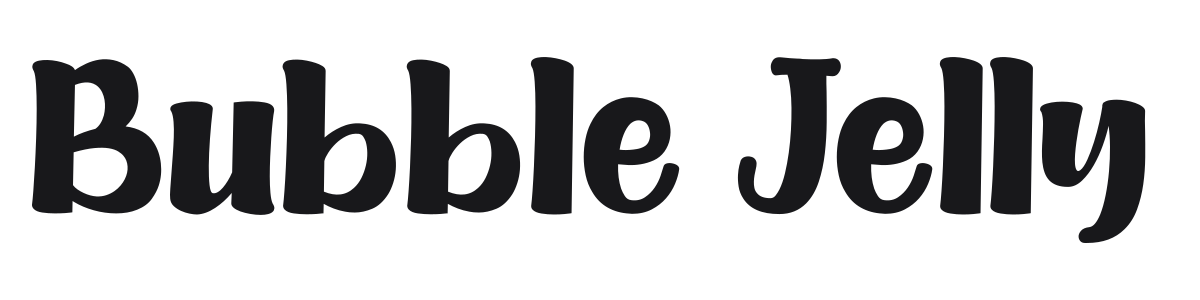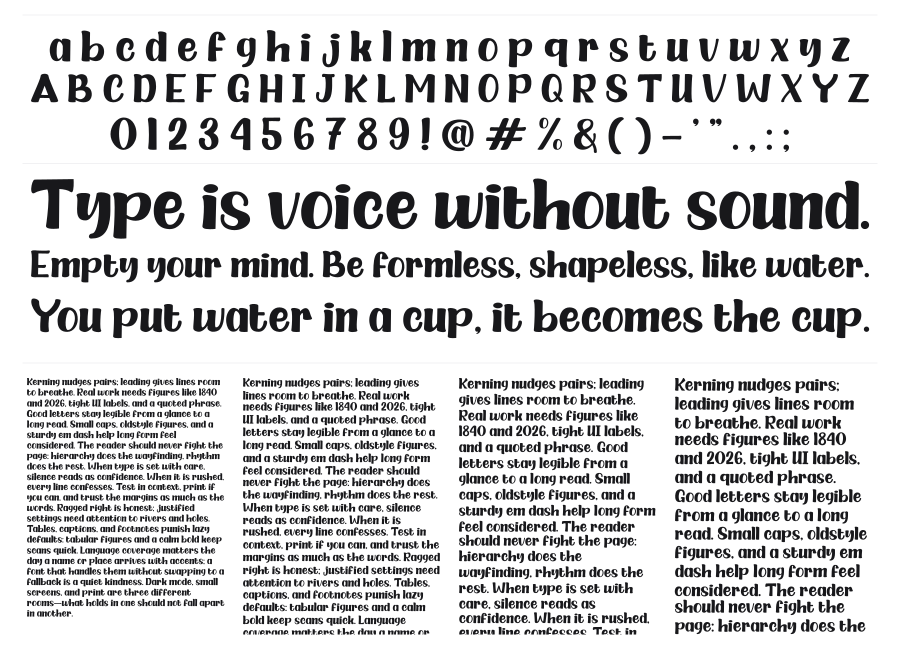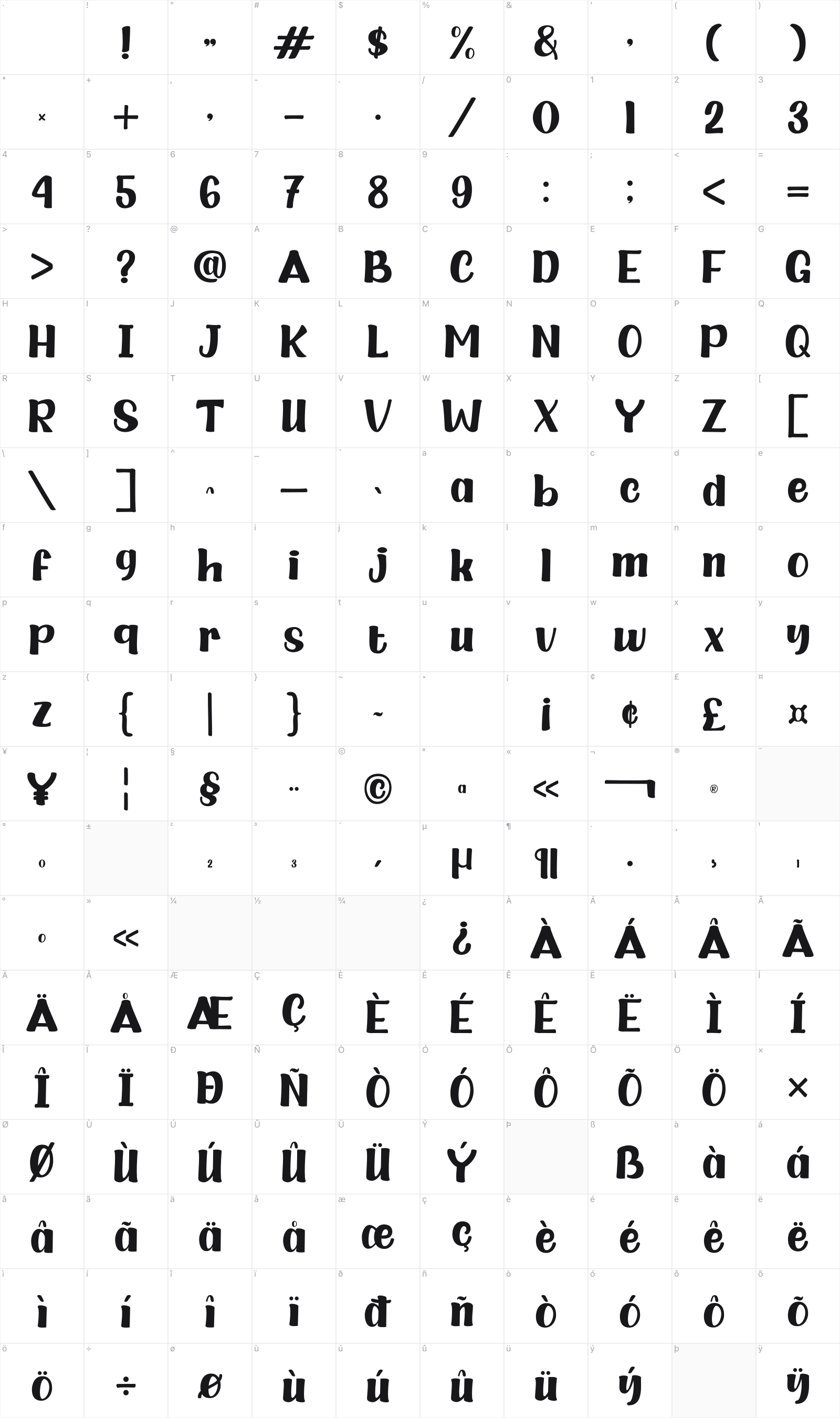
Bubble Jelly
Bubble Jelly is a bold, bubbly display font with chunky strokes, rounded terminals, and a playful mix of serif and informal construction. The high stroke contrast and inflated letterforms give it an animated, cartoon energy that feels right at home on sweet packaging, children's content, or anywhere that needs a dose of fun. It reads loud and clear at large sizes.